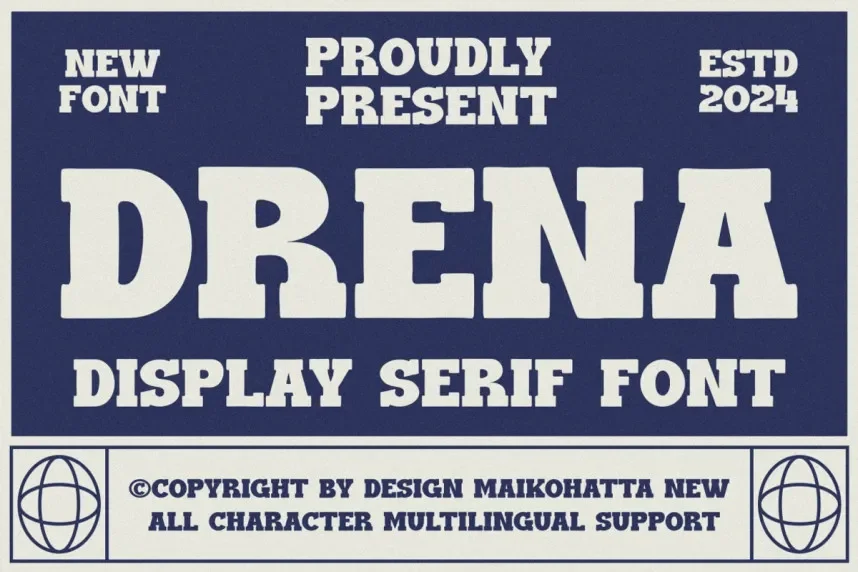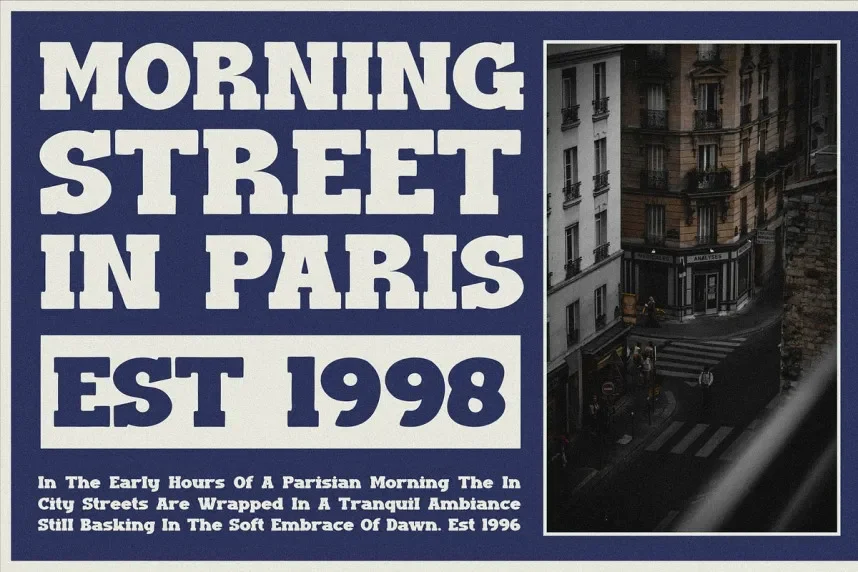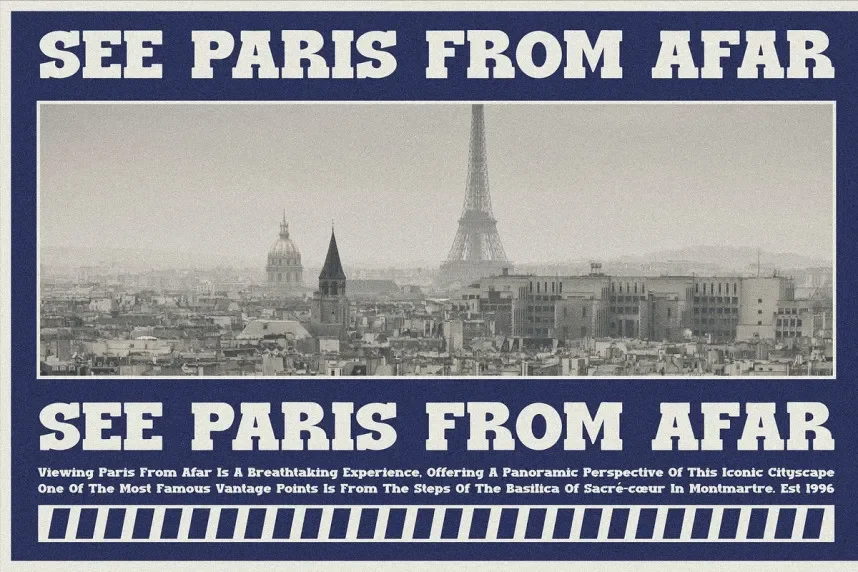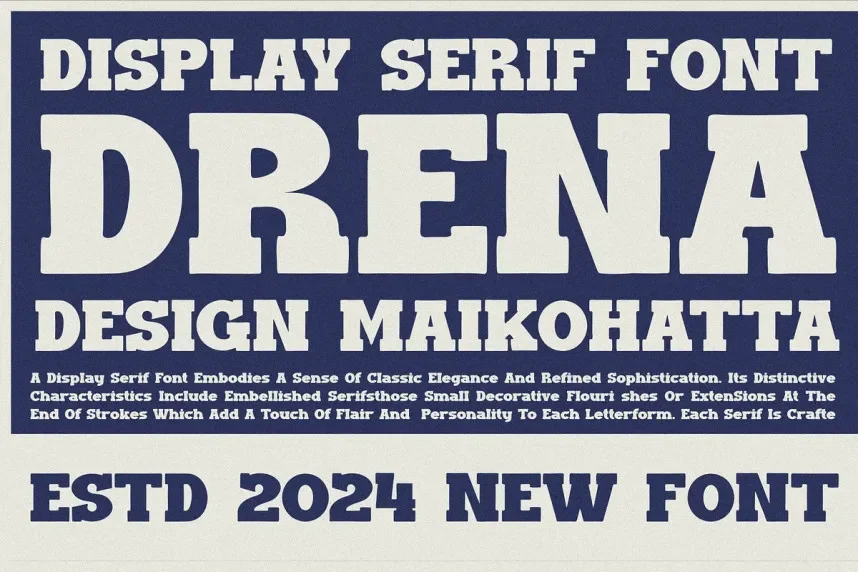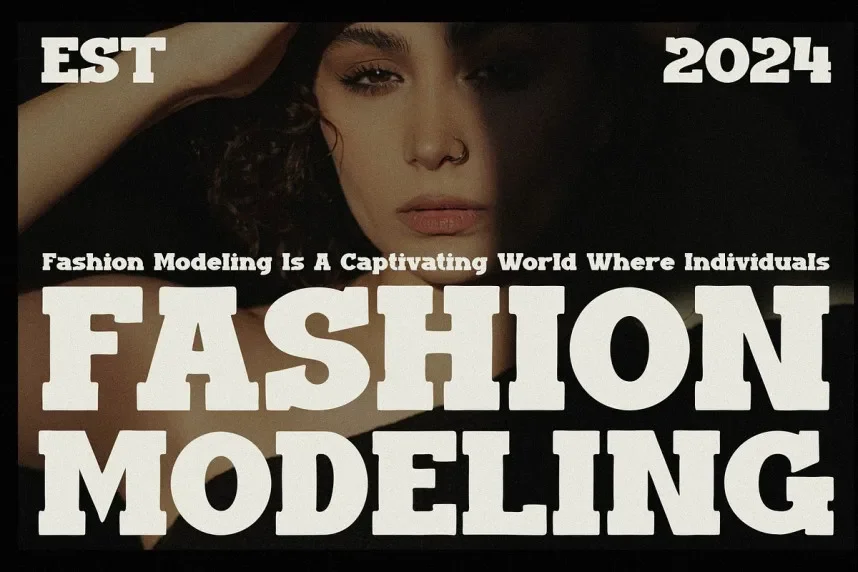
Drena Font is a script-style typeface that brings a smooth, flowing handwritten feel to your designs. Its delicate curves and elegant ligatures make it perfect for invitations, greeting cards, and logos that require a personalized, artistic touch.